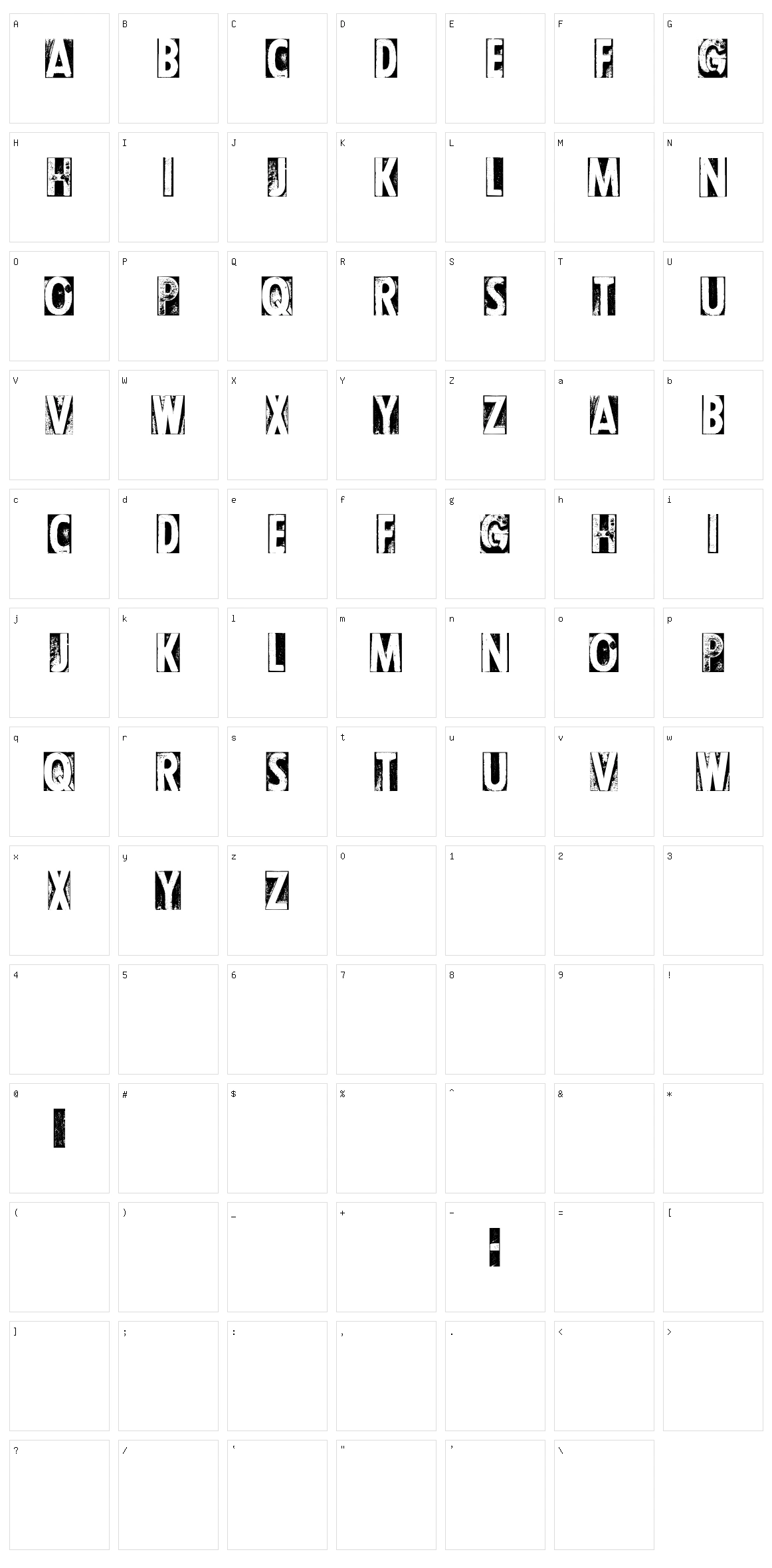
The free font CF Letterpress Type is carefully designed by Cloutierfontes, showcasing a thoughtful balance of creativity and usability and falls under the Destroy font style. When you download the ZIP file, it contains only 1255.68 KB of font files, making it lightweight and quick to download. Please review the license details below to understand permitted usage and distribution rights. If license information is not available, we recommend using this font for personal projects only or contacting the author directly for commercial usage permissions.